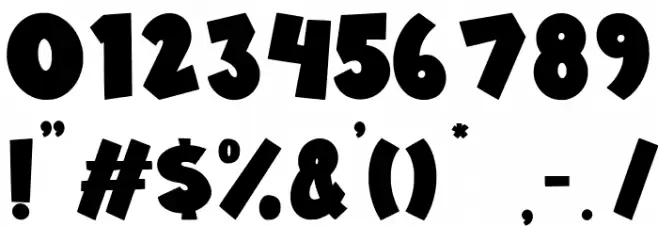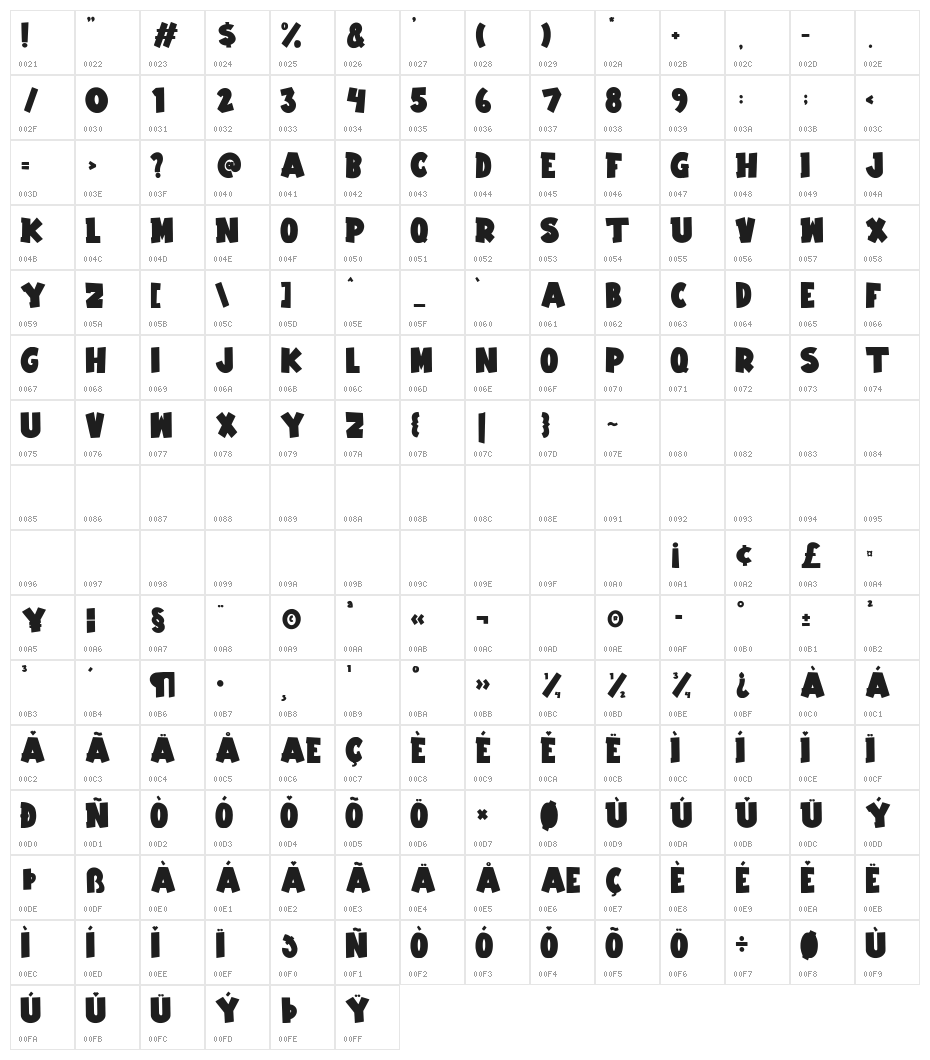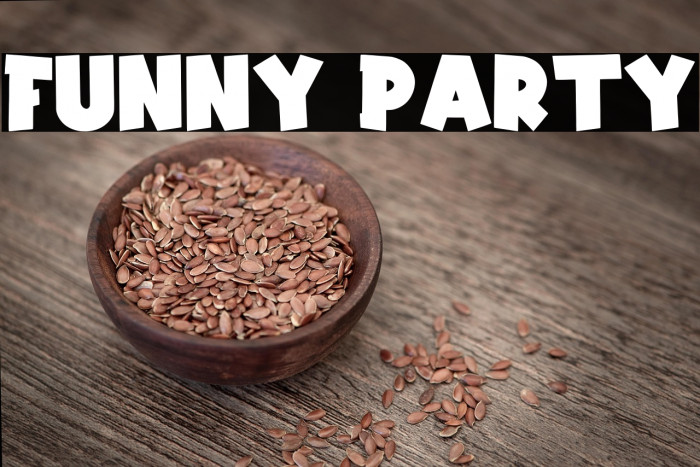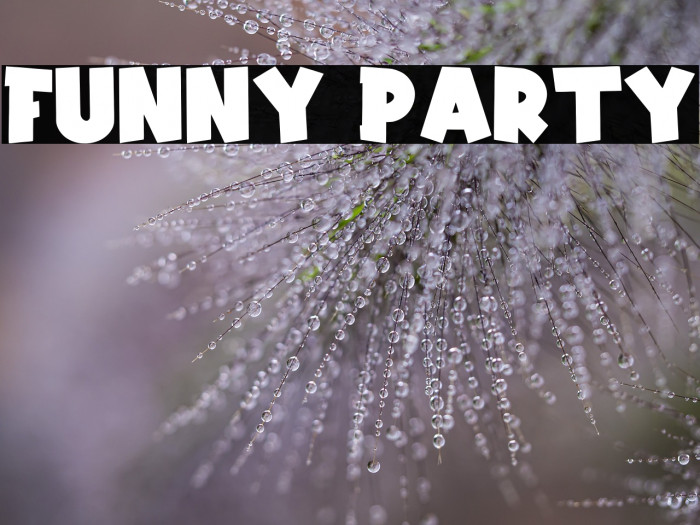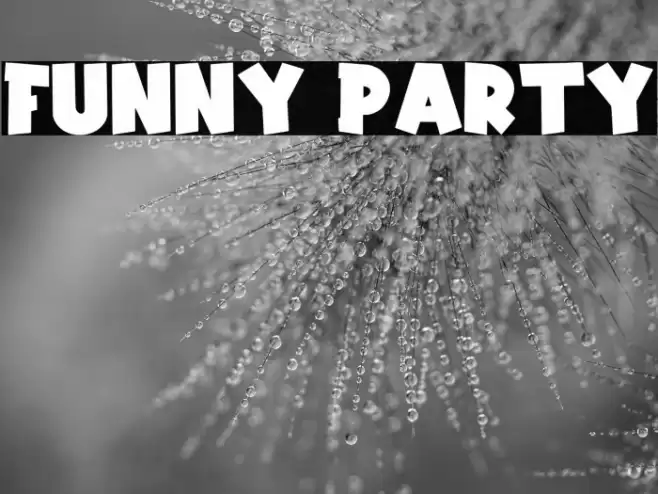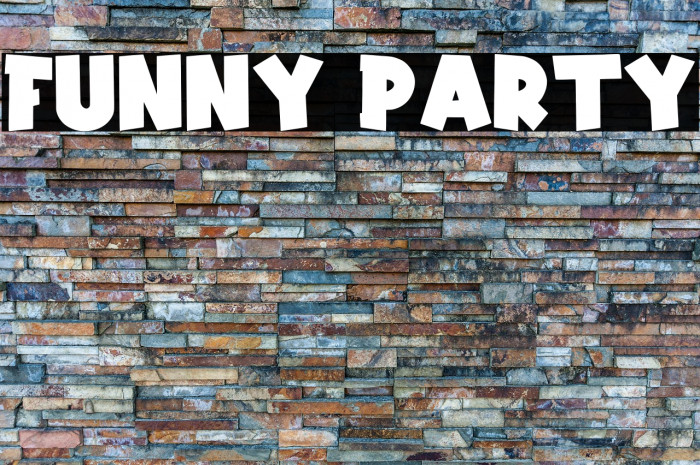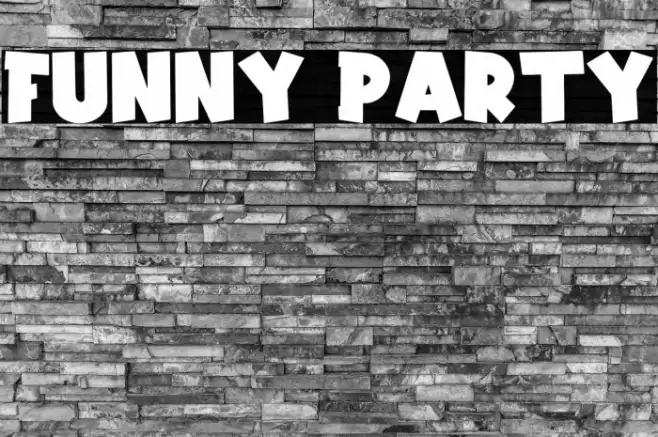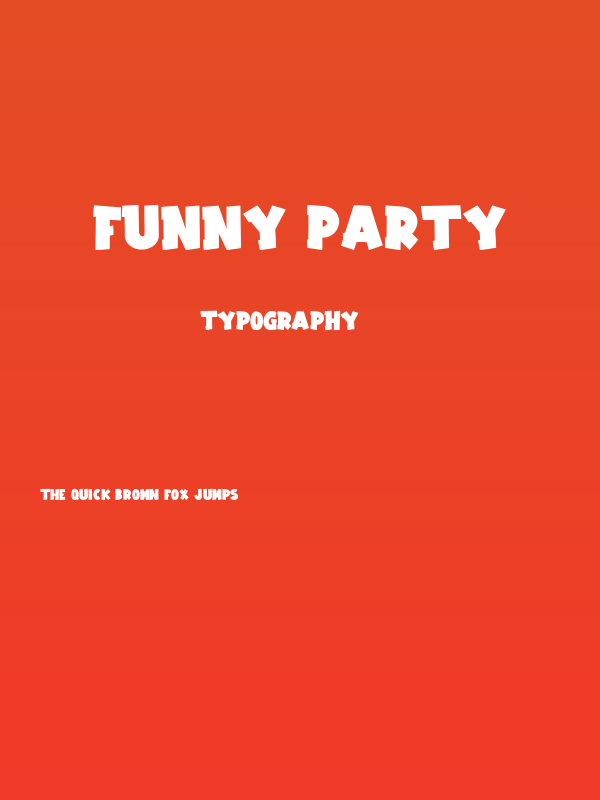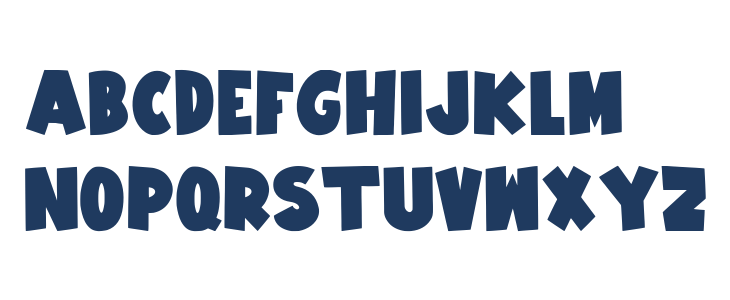
Funny Party Font
Funny Party Description
This font exudes a playful and whimsical charm, characterized by its bold, irregular shapes and exaggerated curves. The letters are thick and chunky, giving a sense of fun and energy. The uneven baseline and varying heights of the characters add to its quirky appeal, making it ideal for projects that require a lively and informal touch. The numbers and special characters maintain the same playful style, ensuring consistency throughout. Its bold presence makes it stand out, perfect for grabbing attention.
| Proposed Projects | Ideal for children's books, party invitations, comic strips, and playful branding. |